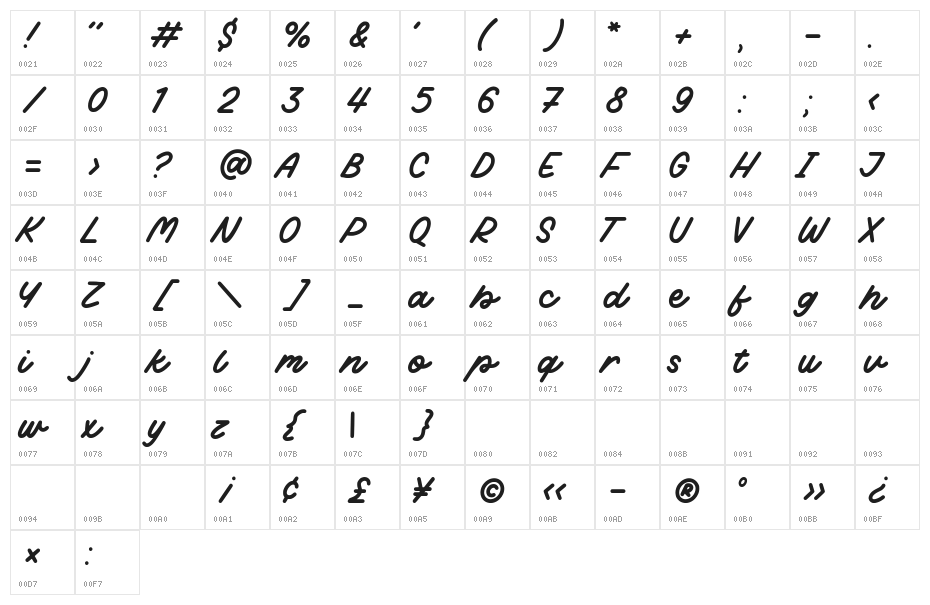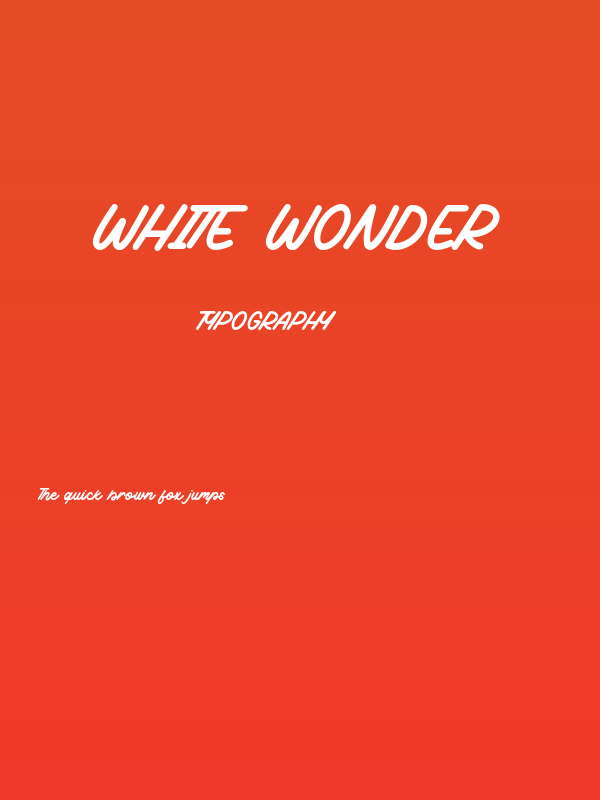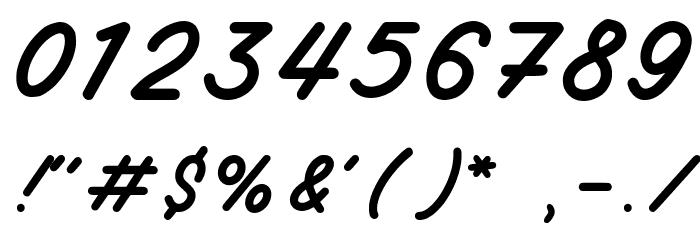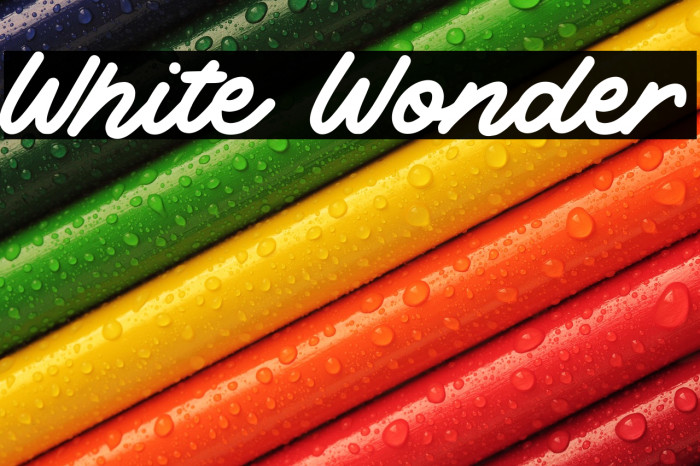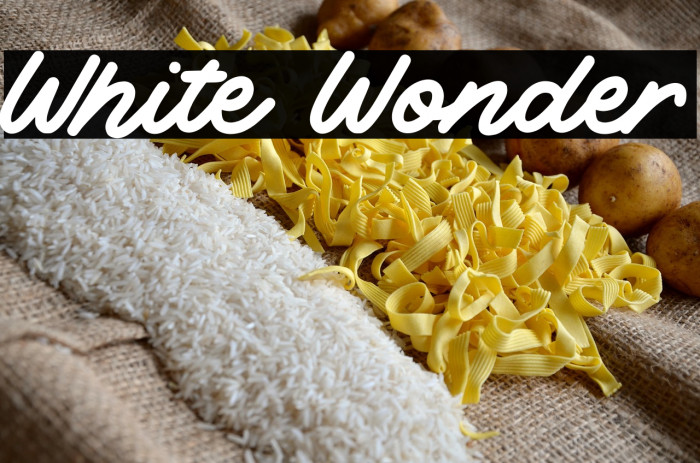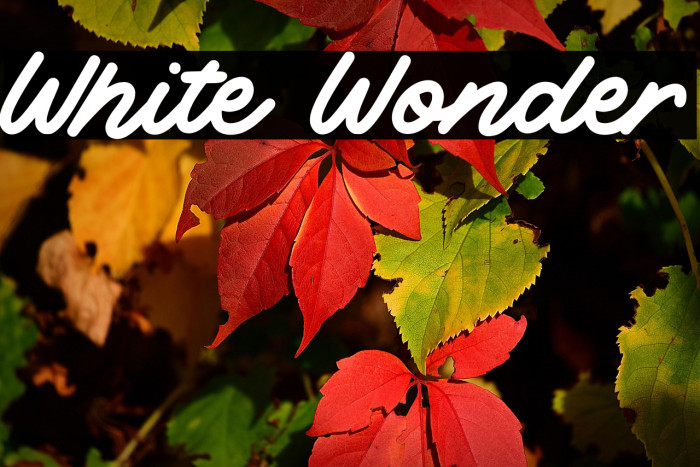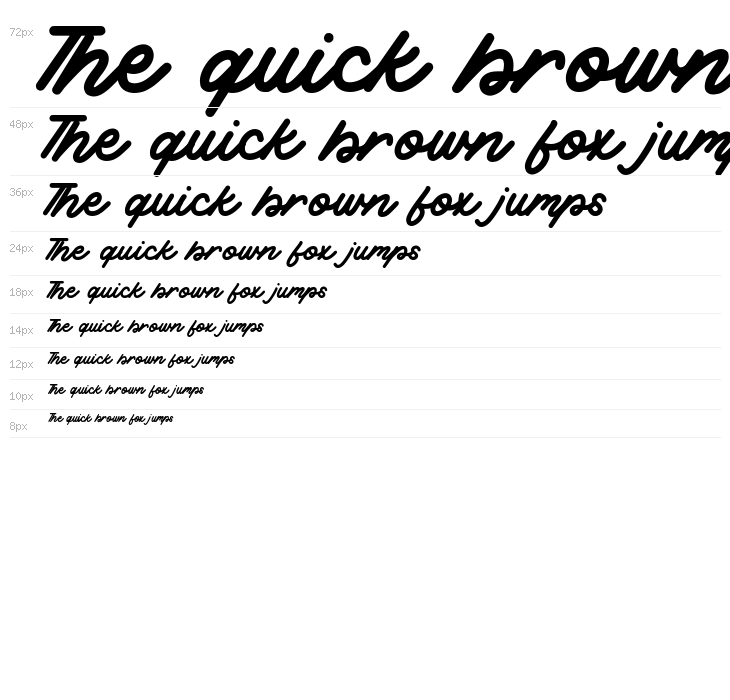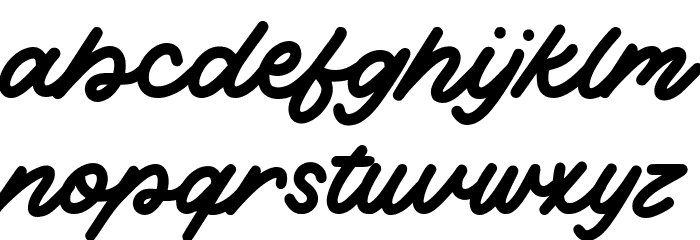
White Wonder Font
White Wonder Description
This font features a smooth, flowing script style that mimics natural handwriting. The characters are connected, creating a seamless and elegant appearance. The strokes are consistent in weight, providing a uniform look across all letters and numbers. The uppercase letters are slightly larger and more pronounced, while the lowercase letters maintain a balanced and cohesive form. The numerals are clear and easy to read, matching the overall cursive style. Special characters are well-integrated, maintaining the fluidity of the script. This font is ideal for projects that require a personal, handwritten touch, such as invitations, greeting cards, and branding materials.